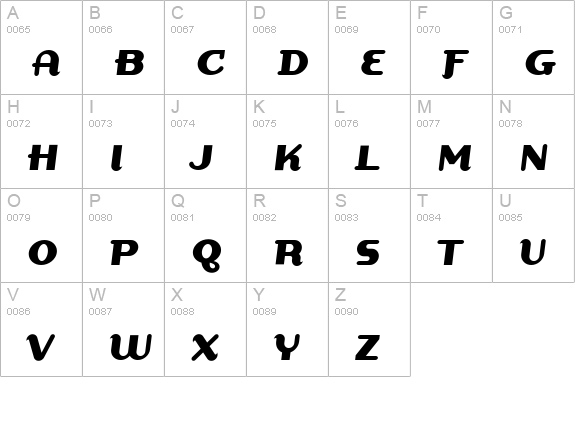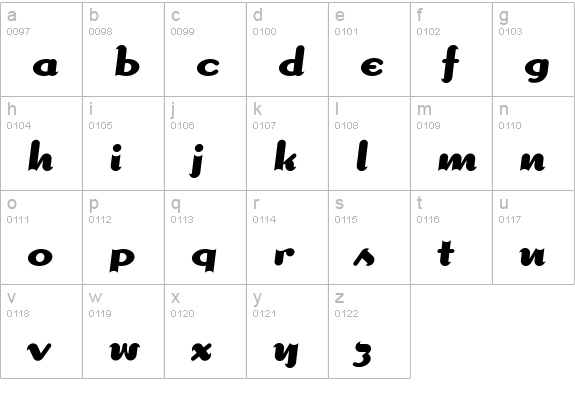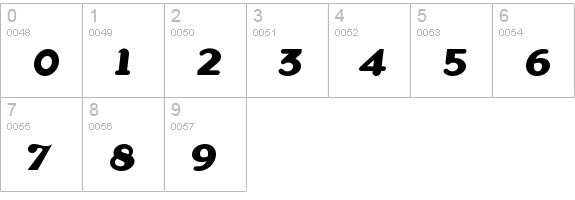
DogmaScript-Bold Font Details
DogmaScript-Bold is a strong, high-contrast variant in the DogmaScript typeface family \xE2\x80\x94 well suited to headlines, attention-grabbing titles, and strong calls-to-action.
DogmaScript-Bold is a visually striking and bold typeface that exudes confidence and style. Its strong lines and sharp edges make it perfect for making a bold statement in any design project. Whether you're creating a poster, logo, or website, DogmaScript-Bold will ensure your message is impactful and eye-catching. The best part? DogmaScript-Bold is completely free to download at FontsMarket.com! This means you can bring the power of this font into your projects without any cost. Don't miss out on the opportunity to enhance your designs with the commanding presence of DogmaScript-Bold. Download it today and make your creations stand out from the crowd.